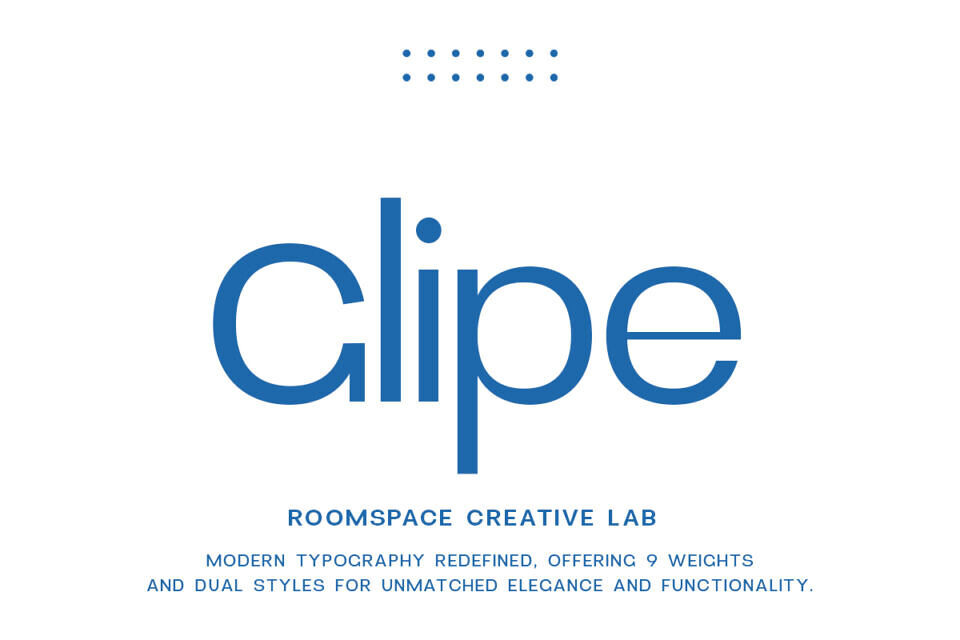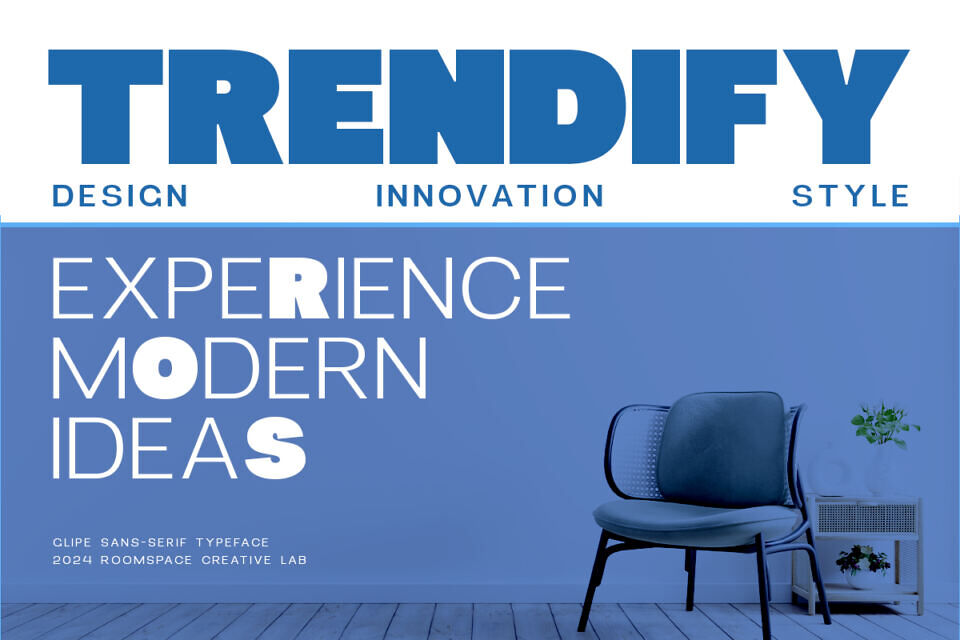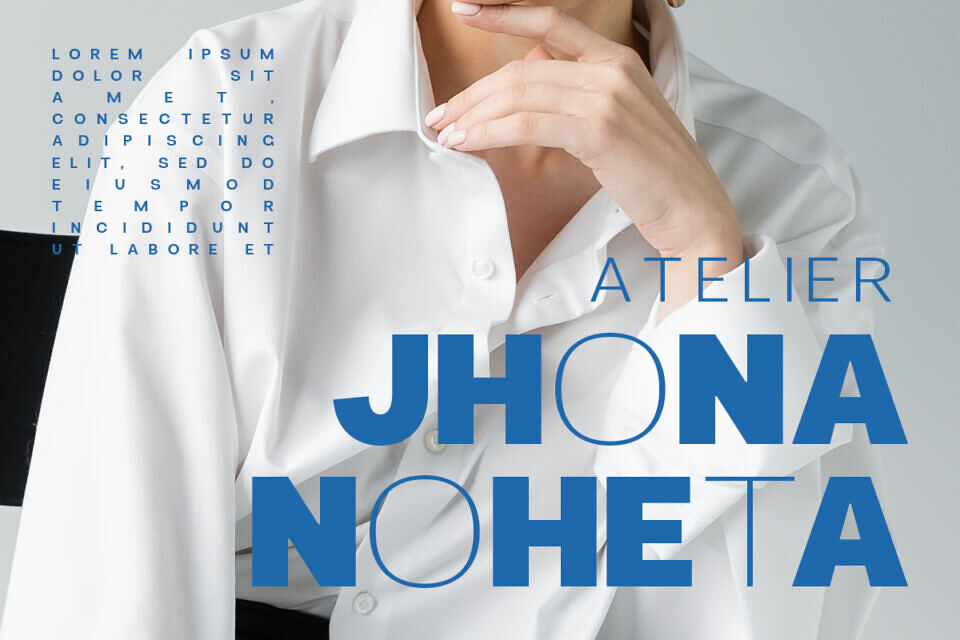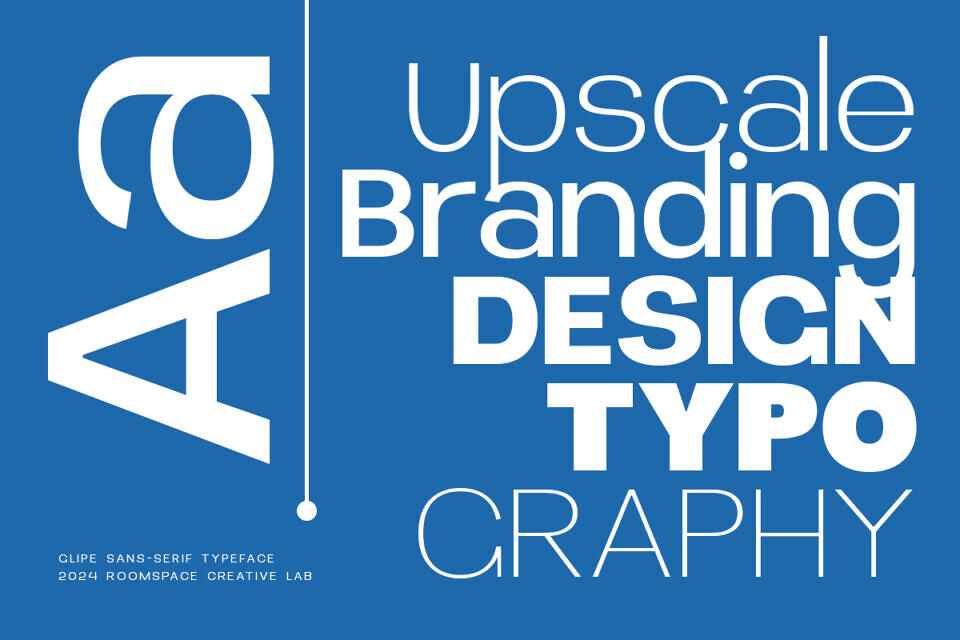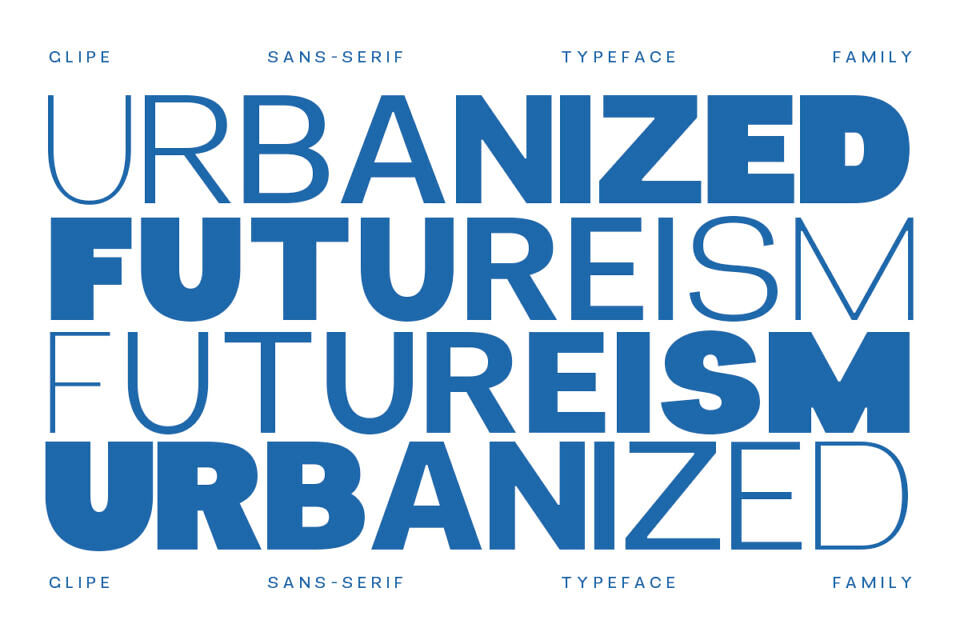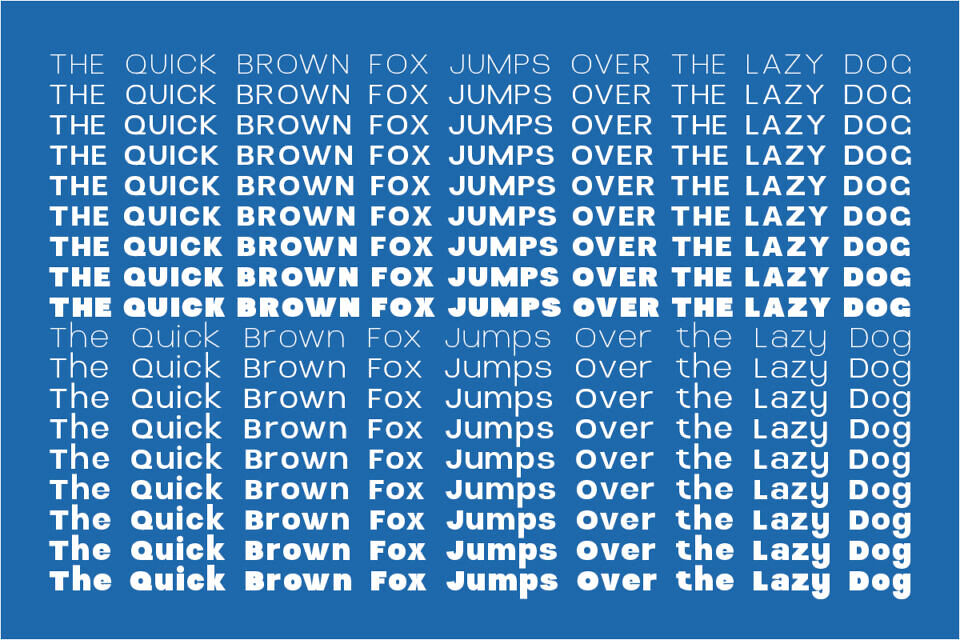
Glipe Font
Glipe is a cutting-edge sans-serif typeface crafted for versatility and modern appeal. Glipe features an impressive 18 styles, including 9 weights ranging from Thin to Black, each paired with a corresponding Oblique style. This extensive range makes Glipe the perfect choice for various design needs, from lightweight and subtle text to bold, commanding headlines.
Glipe’s thoughtfully designed styles include Thin, Extra Light, Light, Regular, Medium, Semi Bold, Bold, Extra Bold, and Black, each available in both standard and oblique options. Whether you’re designing minimalist branding, professional presentations, sleek UI/UX layouts, or elegant editorial projects, Glipe adapts effortlessly to any creative challenge.